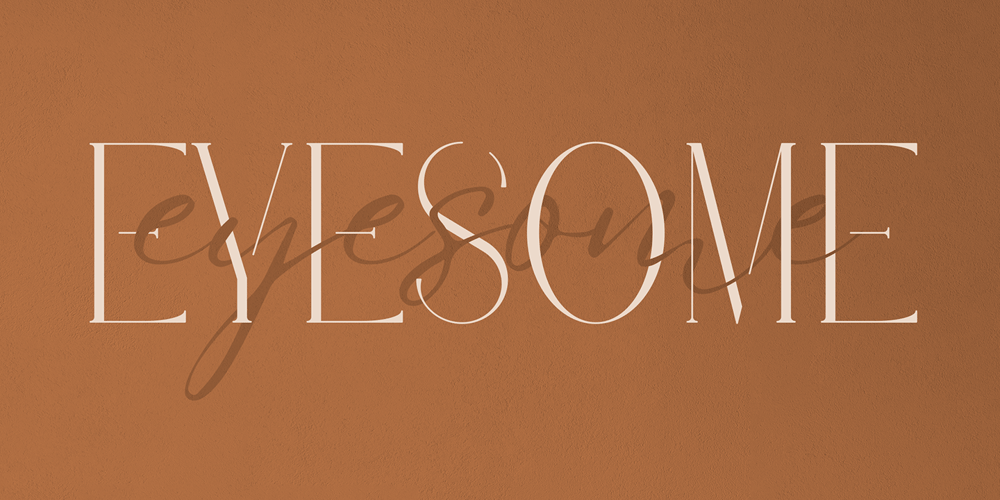
Eyesome Font Family was designed by Vladimir Fedotov, Plamen Petrov and published by VP Creative Shop. Eyesome contains 3 styles and family package options. Introducing Eyesome – Modern Font DuoEyesome is elegant and organic typeface with multilingual support. It’s a very versatile font that works great in large and small sizes.FEATURES Uppercase, lowercase, numeral, punctuation & Symbol Regular Italic Script Multilingual support No special software is required to type out the standard characters of the Typeface. Canva friendly Feel free to contact me if you have any questions!Mock ups and backgrounds used are not included.Thank you! Enjoy!